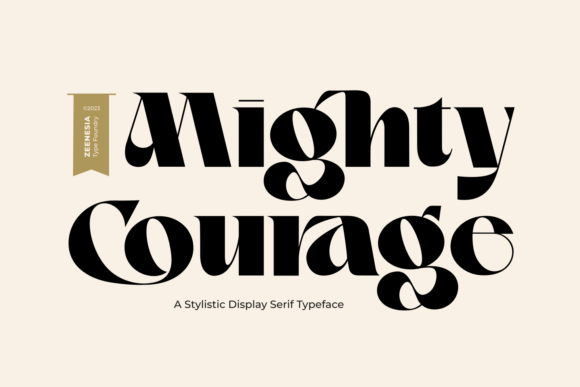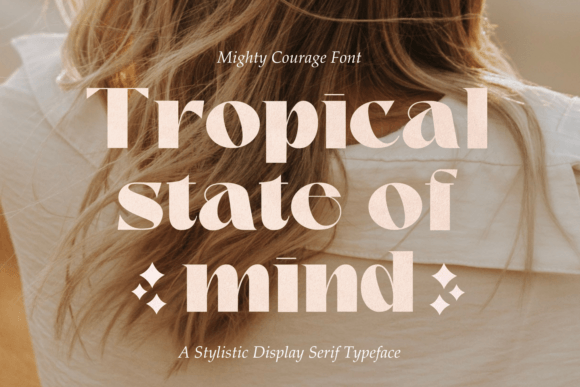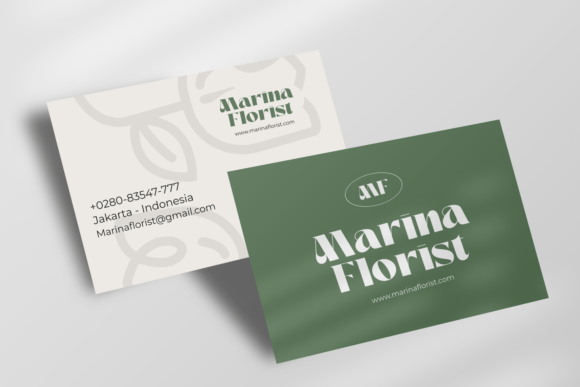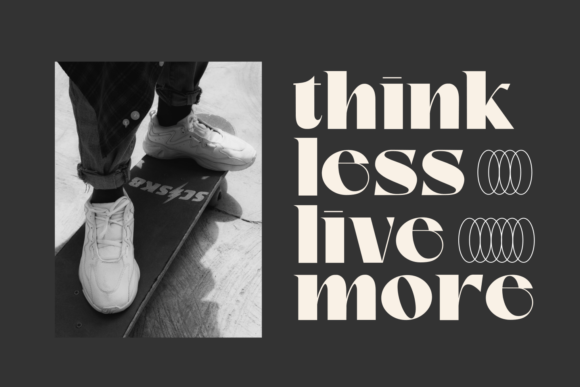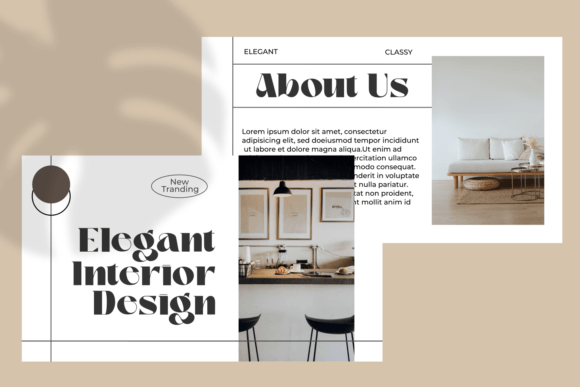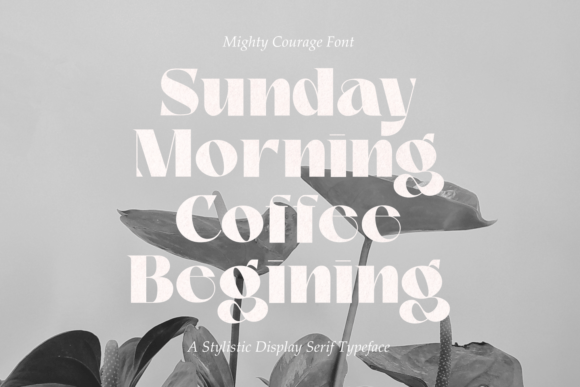
Introduction to Mighty Courage Font
Have you ever stared at a blank page, unsure of where to begin your next creative project? The blank canvas can be intimidating, but sometimes all it takes is a spark of inspiration to get those creative juices flowing. For me, that spark often comes in the form of a beautiful font, and today I’m excited to introduce you to one of my new favorites: the Mighty Courage Font.
This modern and elegant serif font is more than just a pretty face – it’s a valuable resource for designers looking to add a touch of sophistication to their projects. With its unique and classy look, the Mighty Courage Font is perfect for editorial projects, logo design, web fonts, and more. Whether you’re working on a clothing branding project, product packaging, or simply need a stylish text overlay for a background image, this font is sure to deliver.
Key Features of Mighty Courage Font
- Unique, bold, and modern font style suitable for headings and titles
- Perfect for designers and artists working on various creative projects
Honest Review: Mighty Courage Font
I recently stumbled upon the Mighty Courage Font and I must say, I was quite impressed. As a designer, I’m always on the lookout for high-quality design resources that can elevate my creative projects.
Here are some things that work well about the Mighty Courage Font:
- ✨ High-quality font with clear, bold lines that make it perfect for headings and titles.
- ⚠️ The font may not be suitable for designs that require a transparent background, as it can be quite bold and overpowering.
- ⚠️ Some users may find the font too dramatic or attention-seeking, which can be a drawback for more subtle designs.
Overall, I’d say the Mighty Courage Font is a solid addition to any designer’s toolkit. While it may not be perfect for every project, it’s certainly a high-quality font that can add a touch of drama and flair to your creative work.
How to Use Mighty Courage Font
The Mighty Courage Font is a high-quality, free design resource ideal for creative projects that require a bold and courageous touch. With its transparent background, this font is versatile and can be used in a variety of design applications.
Tips for Getting the Most Out of Mighty Courage Font
For best results, use the Mighty Courage Font in combination with other bold and courageous design elements, such as bright colors and striking graphics. Experiment with different font sizes, styles, and arrangements to achieve the desired effect.
The Mighty Courage Font is ideal for a variety of creative projects, including social media graphics, posters, presentations, reports, and documents. It’s also great for use in branding and marketing materials, such as logos, business cards, and brochures.